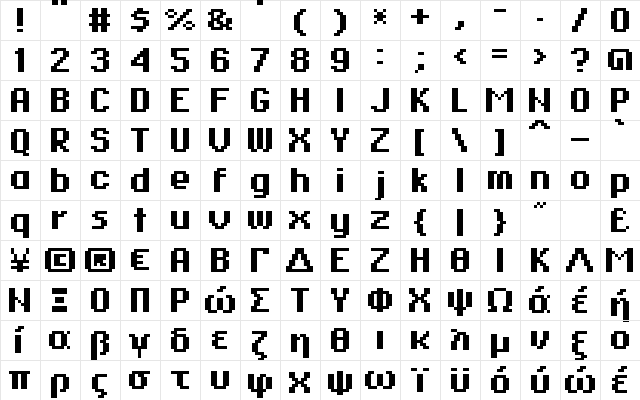
RaxelGreekBold Bold
Design Context for RaxelGreekBold Typeface
RaxelGreekBold takes a measured approach to typography — its balanced proportions and neutral character make it a reliable workhorse for both digital and print work. The heavy weight commands attention and anchors typographic hierarchies.